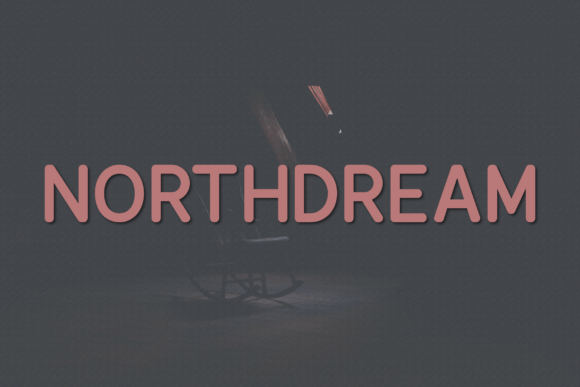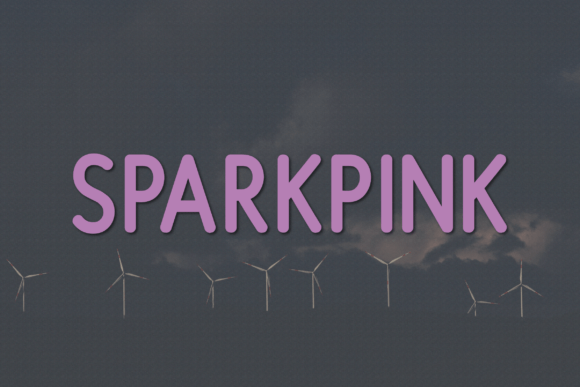
Velvetnoe: A Classy Sans Serif for Thoughtful Branding
I opened a fresh brand board last week—blank, hopeful, slightly intimidating—and dropped in Velvetnoe before I’d even sketched the logo concept. Not because I was rushing, but because its rhythm felt right from the first keystroke. It’s rare to find a sans serif that lands with quiet confidence instead of shouting for attention. Velvetnoe doesn’t try to be everything; it’s refined, intentional, and built for moments where elegance matters more than edge.
What Velvetnoe Actually Feels Like in Real Work
Velvetnoe is a modern, classy sans serif typeface—clean but not cold, structured but not stiff. Its uppercase-only design gives it an air of understated authority, like a well-tailored blazer worn with ease. The letterforms are balanced: generous x-height, open counters, subtle terminal flares on characters like C and S, and just enough warmth in the curves to avoid sterile minimalism. It’s not geometric (no rigid circles or perfect angles), nor is it humanist in the traditional sense—it occupies a thoughtful middle ground.
I tested it across a local ceramic studio’s full identity refresh: logo lockup, business cards, product labels, Instagram story templates, and their website’s hero banner. On the logo draft, Velvetnoe held its own at small sizes—no blurring, no awkward spacing collapse—even when set tight in all-caps. On matte-finish packaging mockups, it looked tactile and grounded, not digital or fleeting. And on the homepage header? It read instantly, without needing bold weight or extra tracking.
Where Velvetnoe Shines (and Where It Steps Back)
This isn’t a body text font—and it shouldn’t be. Velvetnoe excels as a display font and logo font, especially for short, meaningful names or taglines. It works beautifully for café signage, handmade shop branding, skincare product labels, and creative studio identities where tone and texture matter as much as legibility. Its uppercase-only nature naturally guides attention, creates visual hierarchy, and reinforces brand memorability—especially when paired with a quieter supporting typeface.
That said, don’t reach for Velvetnoe when you need paragraph text, fine print on ingredient labels, or dense editorial layouts. It lacks lowercase, italics, numerals beyond 0–9, and extended language support—so multilingual packaging or long-form web copy would require careful pairing or fallbacks. Also, while it’s highly legible at 16pt and up, it starts to lose clarity below 12pt in print—so skip it for tiny QR code footers or micro-printed copyright lines.
Pairing Velvetnoe Without Overthinking It
Velvetnoe plays well with others—but only when the pairing serves the work, not the trend. For the ceramic studio, I paired it with a warm, low-contrast serif (think: a soft Garamond variant) for body text and captions. The contrast was gentle but clear: Velvetnoe anchored the voice, the serif carried the story. For a bakery client earlier this year, I used it over a delicate handwritten script for seasonal banners—Velvetnoe as the “name,” the script as the “handwritten note.” No clashing, no competition.
Avoid stacking it with other uppercase-heavy sans serifs (looking at you, DIN or Futura alternatives)—it loses distinction. And while it *can* pair with another sans, do so only if the second font brings something Velvetnoe doesn’t: rhythm, contrast, or functional flexibility (like variable weights or true italics). When in doubt, go serif + Velvetnoe. It’s the most reliable, professional combo I’ve used this year.
Practical Notes Before You Commit
Velvetnoe ships as a single weight—so plan accordingly. There’s no light, medium, or bold variation. That means hierarchy comes from scale, spacing, color, or pairing—not weight shifts. It includes standard punctuation, numbers 0–9, and common symbols, but no ligatures, swashes, or alternates. If your project relies on typographic flourishes or multilingual glyphs (accents, Cyrillic, diacritics), double-check coverage before finalizing.
File formats include OTF and WOFF—so it’s ready for both print assets and web use. But here’s the non-negotiable: always verify the commercial license. Velvetnoe is a premium font, and its license covers branding, packaging, merchandise, and digital products—but only if explicitly permitted. I once almost used it on a client’s Shopify theme without checking—luckily caught it before upload. Save yourself the revision: read the license, confirm usage scope, and keep proof on file.
A Font That Asks You to Slow Down
Velvetnoe won’t fix weak concepts or compensate for unclear messaging. What it does do—beautifully—is elevate intention. It asks you to choose words carefully, space deliberately, and treat typography as part of the brand’s voice, not just its decoration. In a world of endlessly scalable, infinitely adjustable fonts, Velvetnoe stands out by being quietly selective: uppercase only, one weight, no distractions. That restraint is its strength.